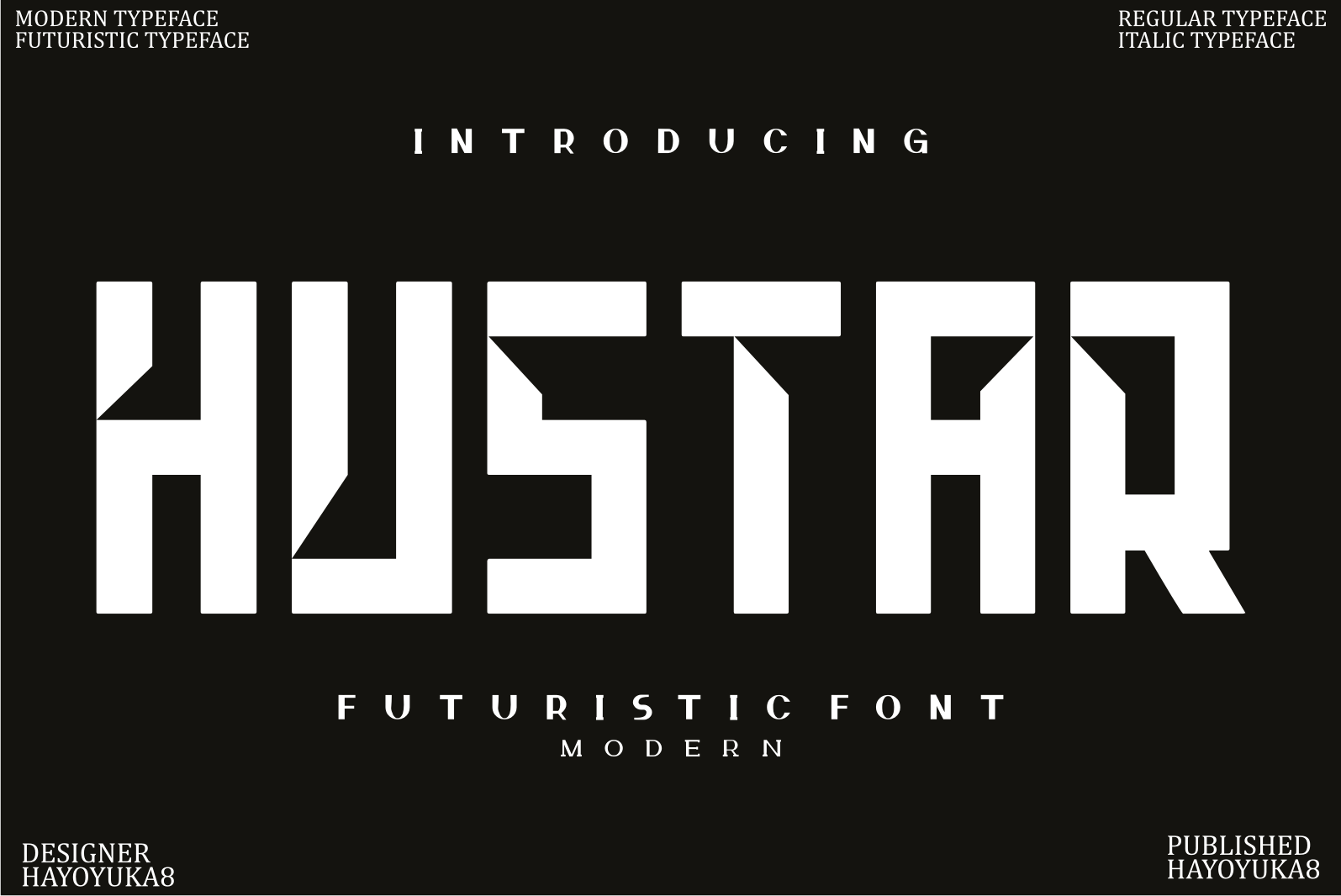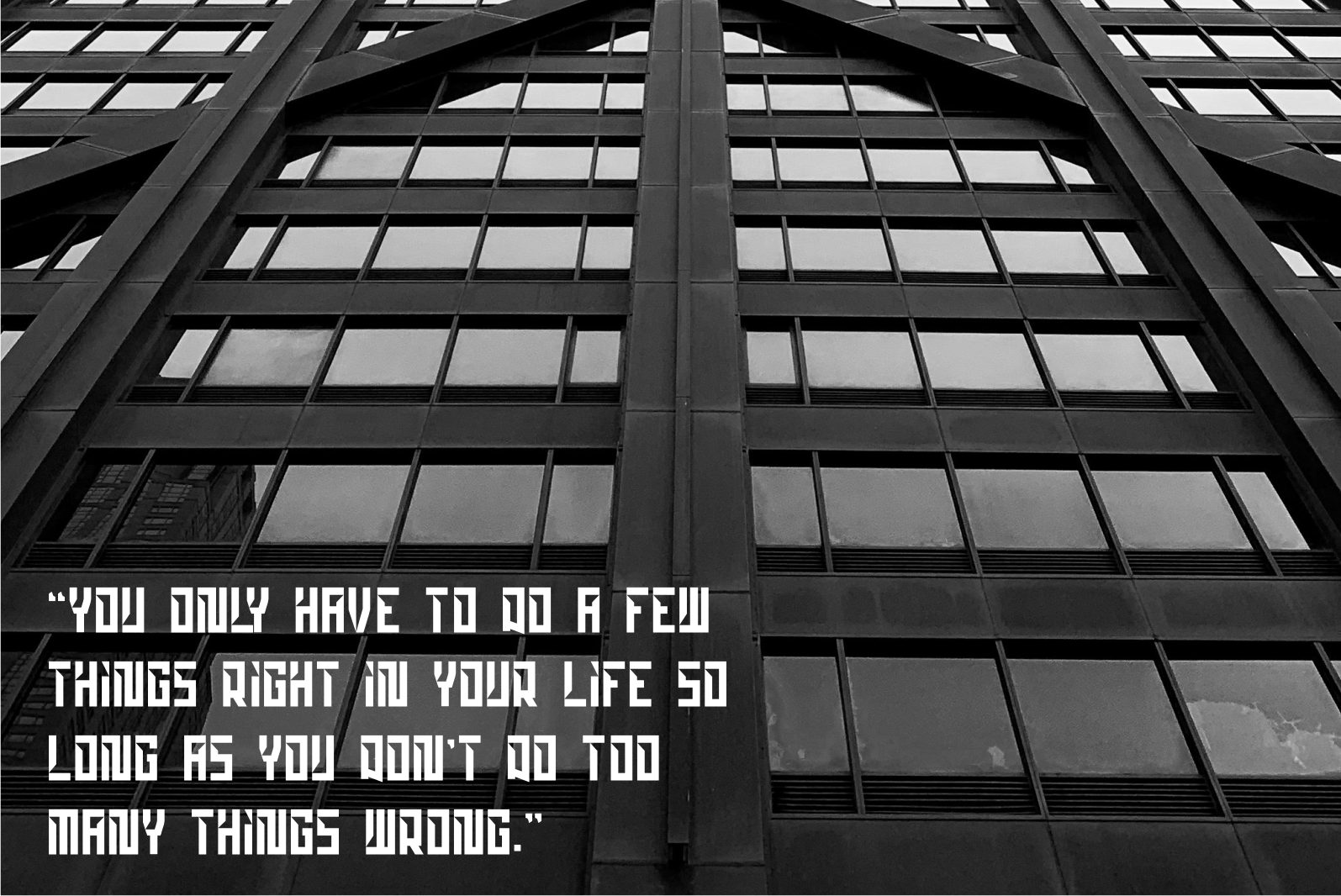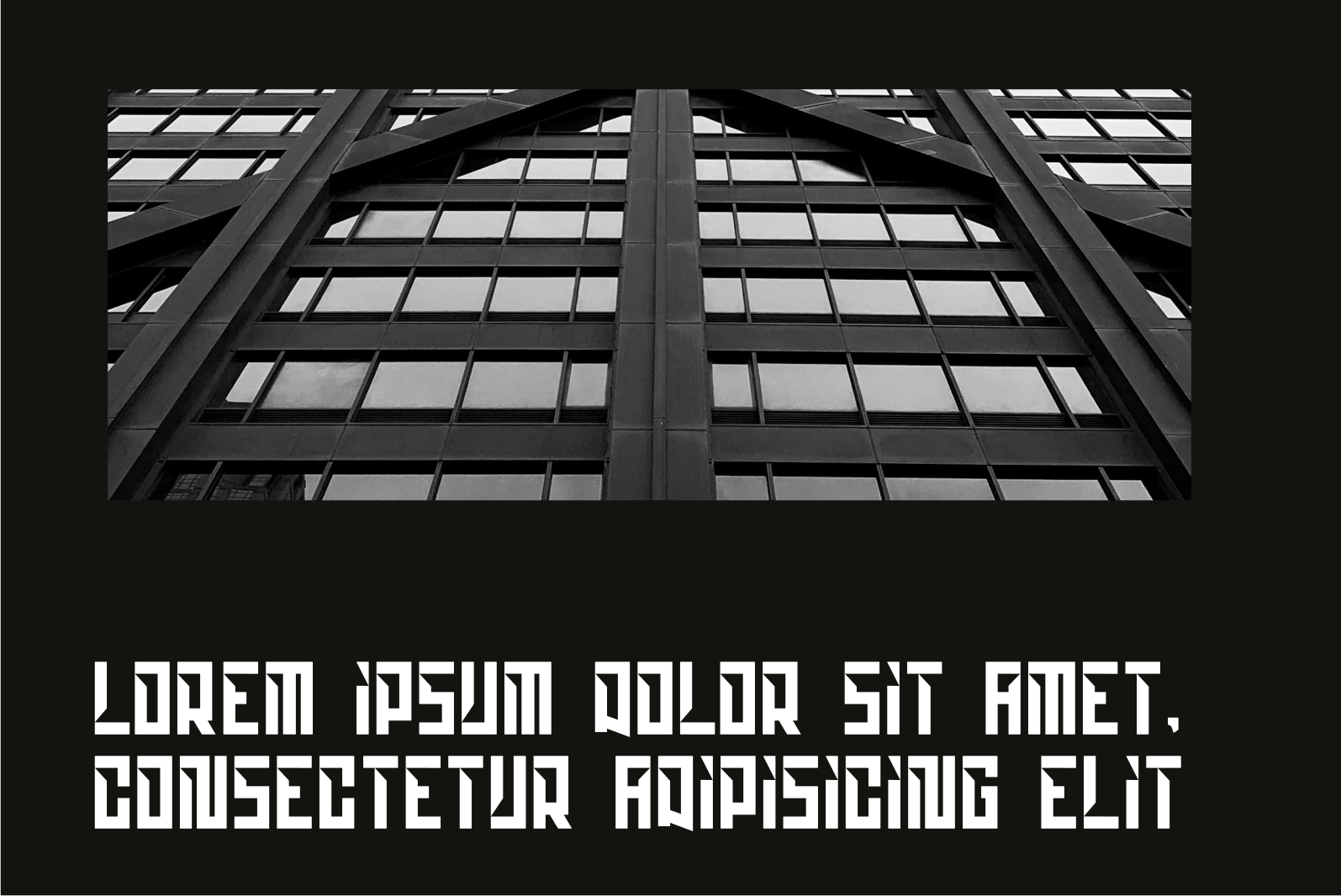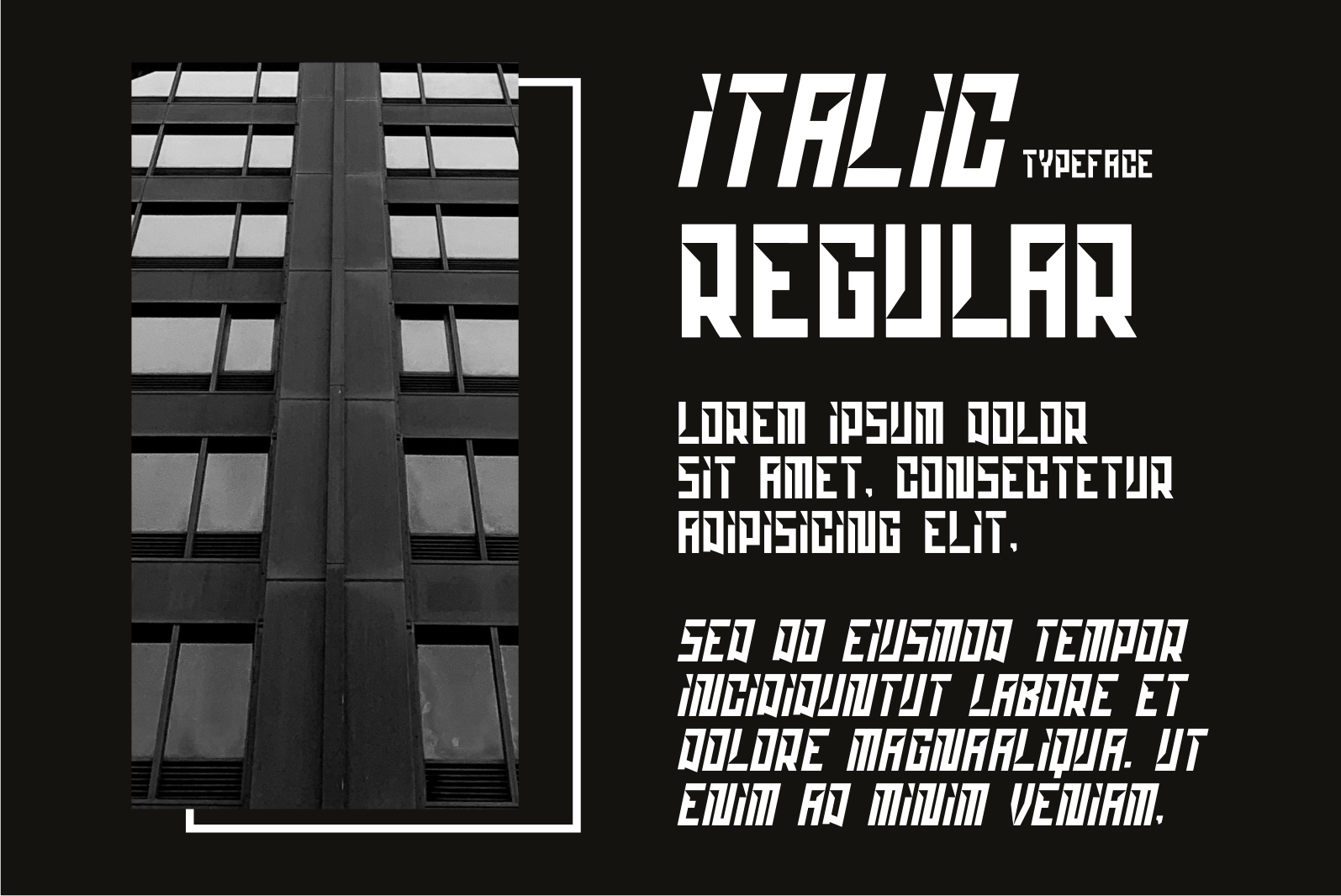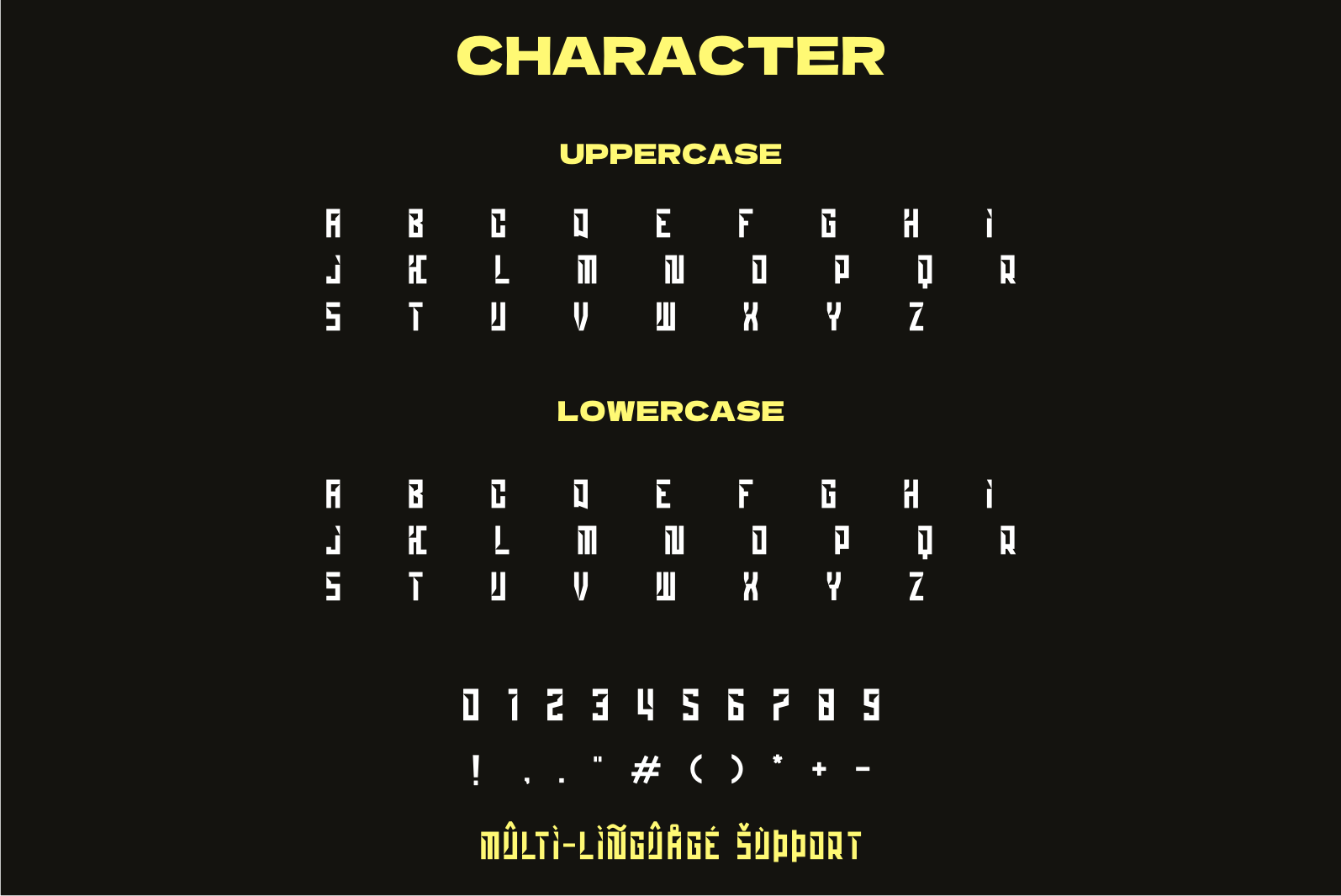
Hustar Font
Hustar Display Font
It’s an assertive and robotic styled display font. This font is ideal for writing web designs, business cards, or pretty much anything else that requires a futuristic touch.